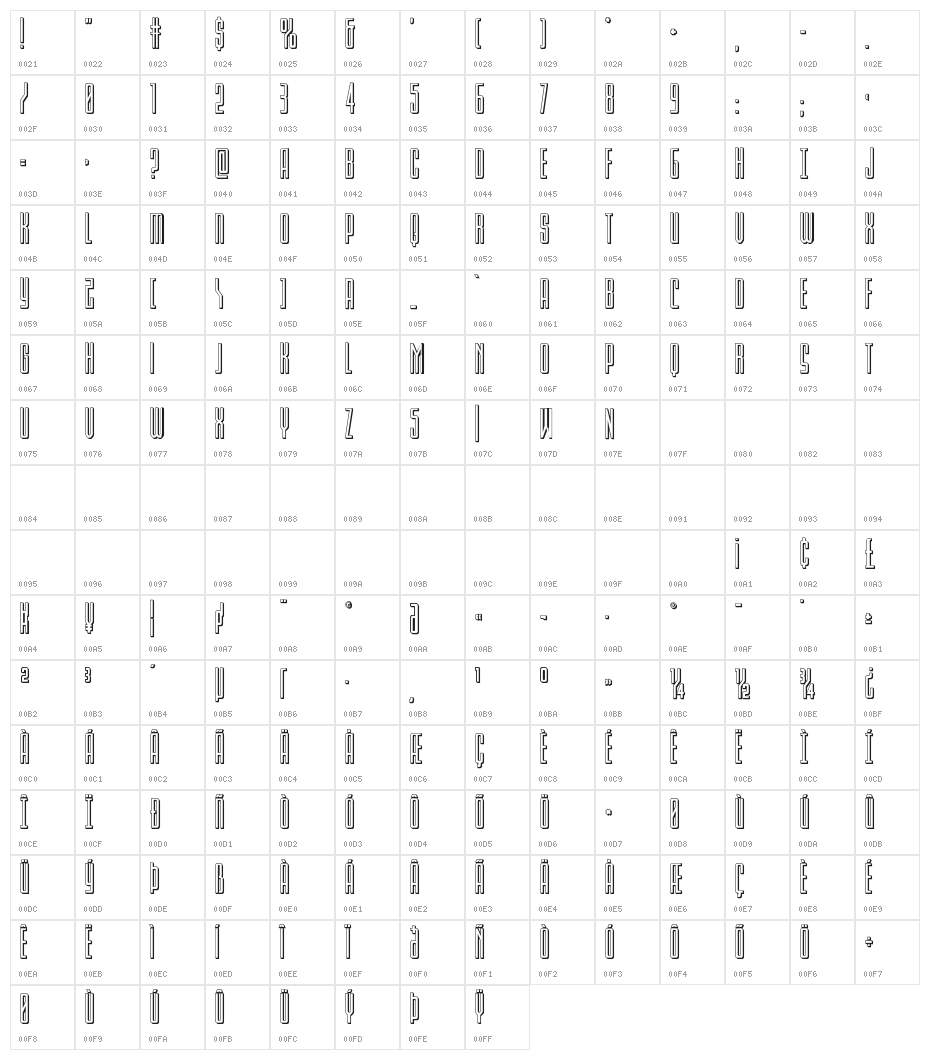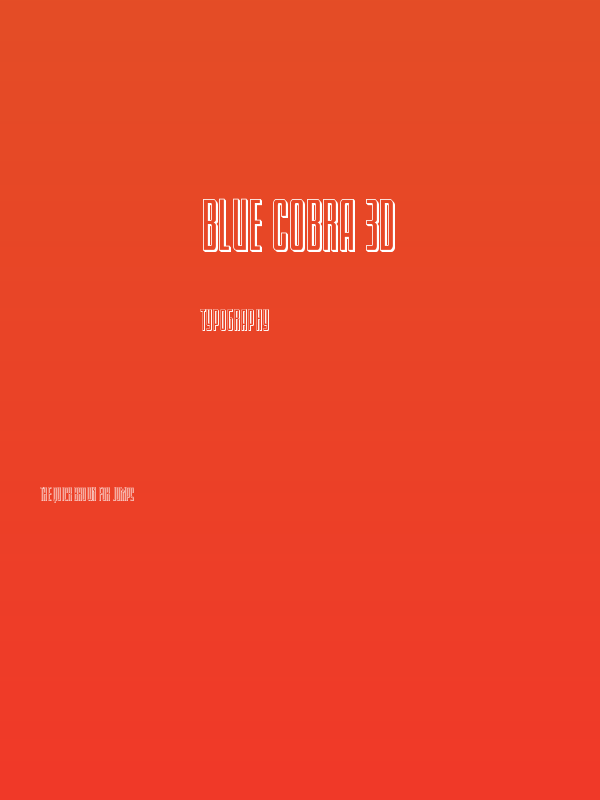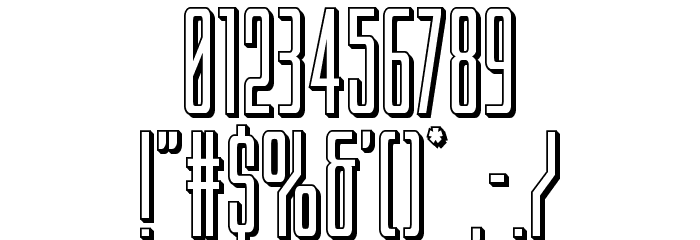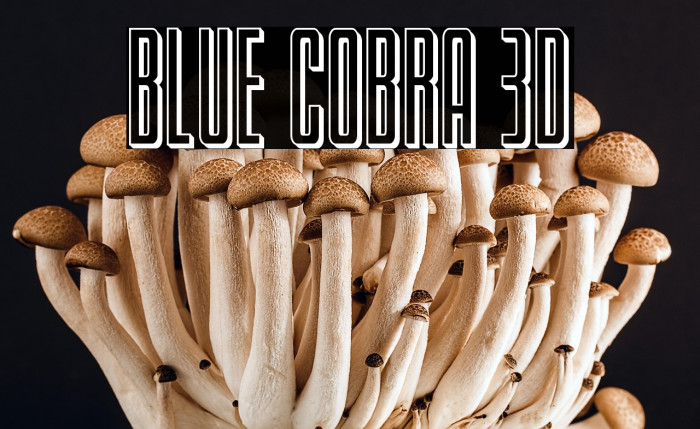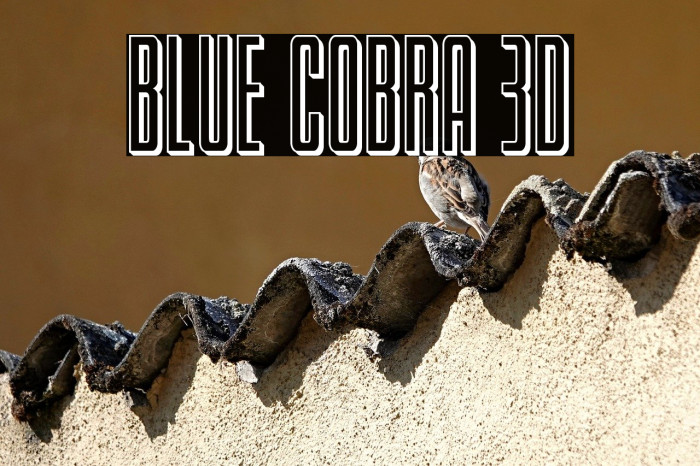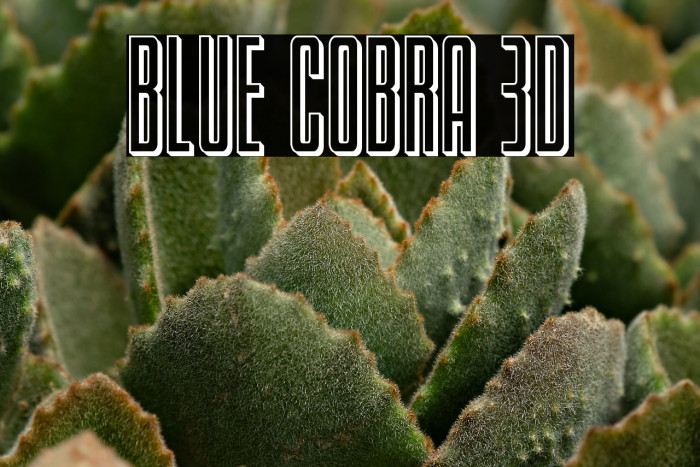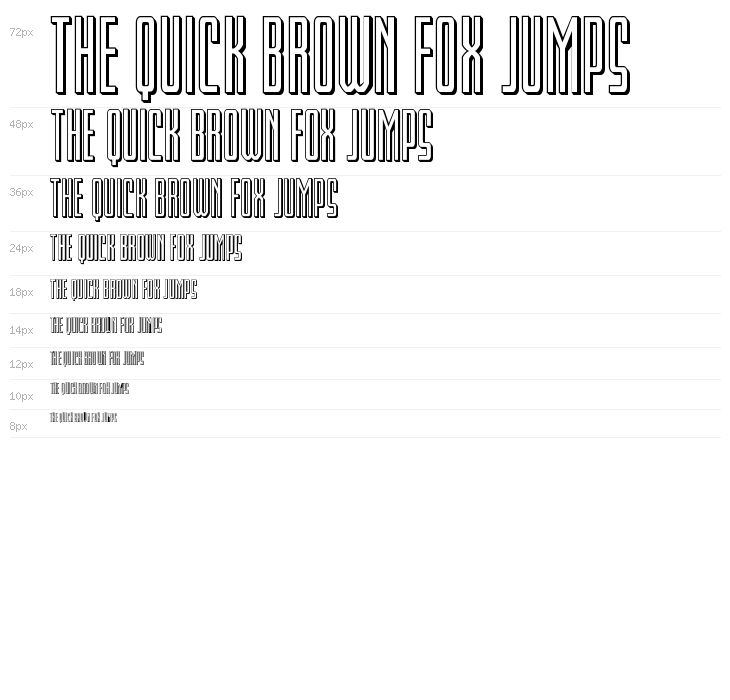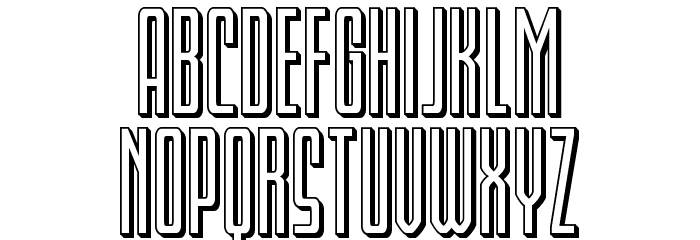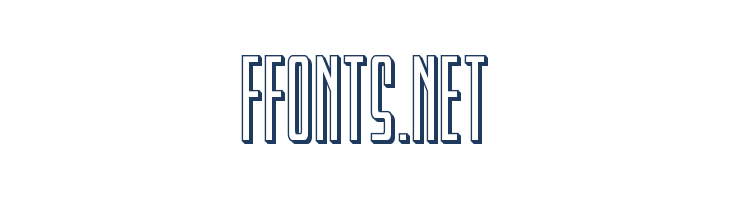
Blue Cobra 3D Font
This font features a bold, geometric design with a three-dimensional effect that gives it a striking and modern appearance. The characters are outlined, creating a sense of depth and dimension. The uppercase and lowercase letters maintain a consistent style, with sharp angles and clean lines that enhance its futuristic look. Numbers and special characters are designed to match the boldness and geometric precision of the letters, making it suitable for eye-catching displays.
| Proposed Projects | Ideal for posters, video game graphics, futuristic branding, and any project requiring a modern, eye-catching typeface. |